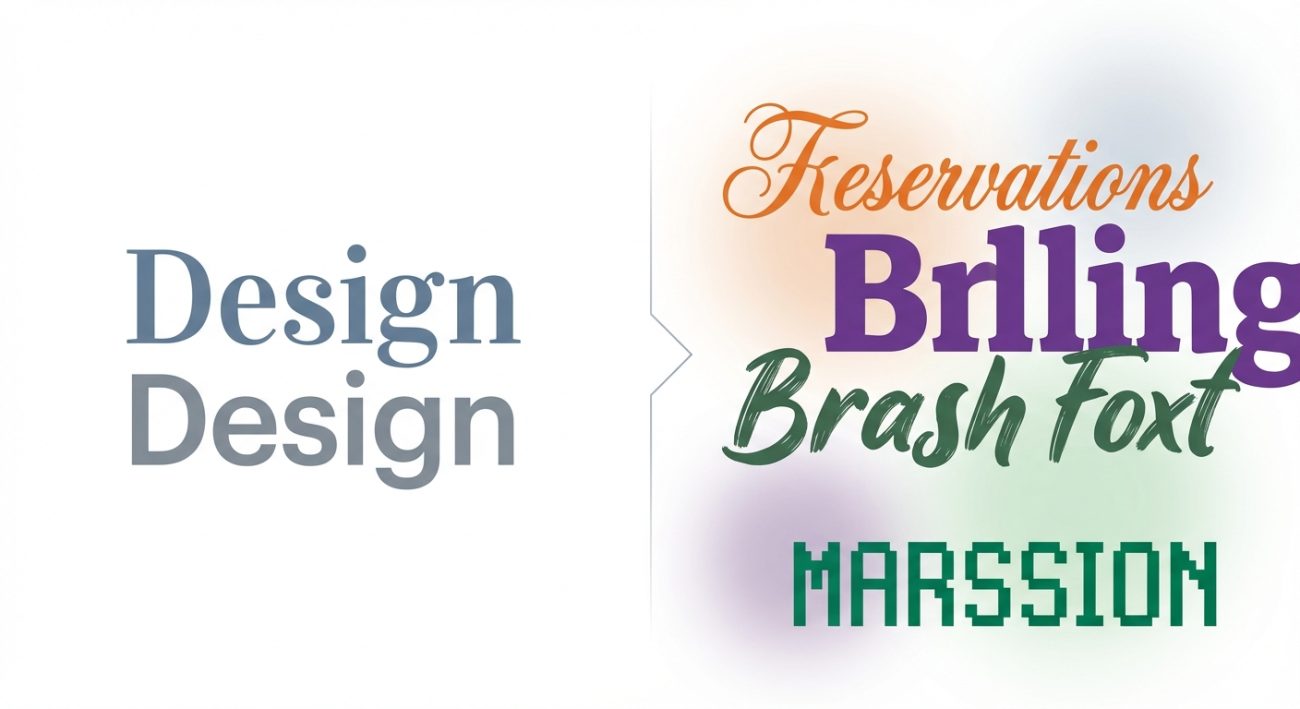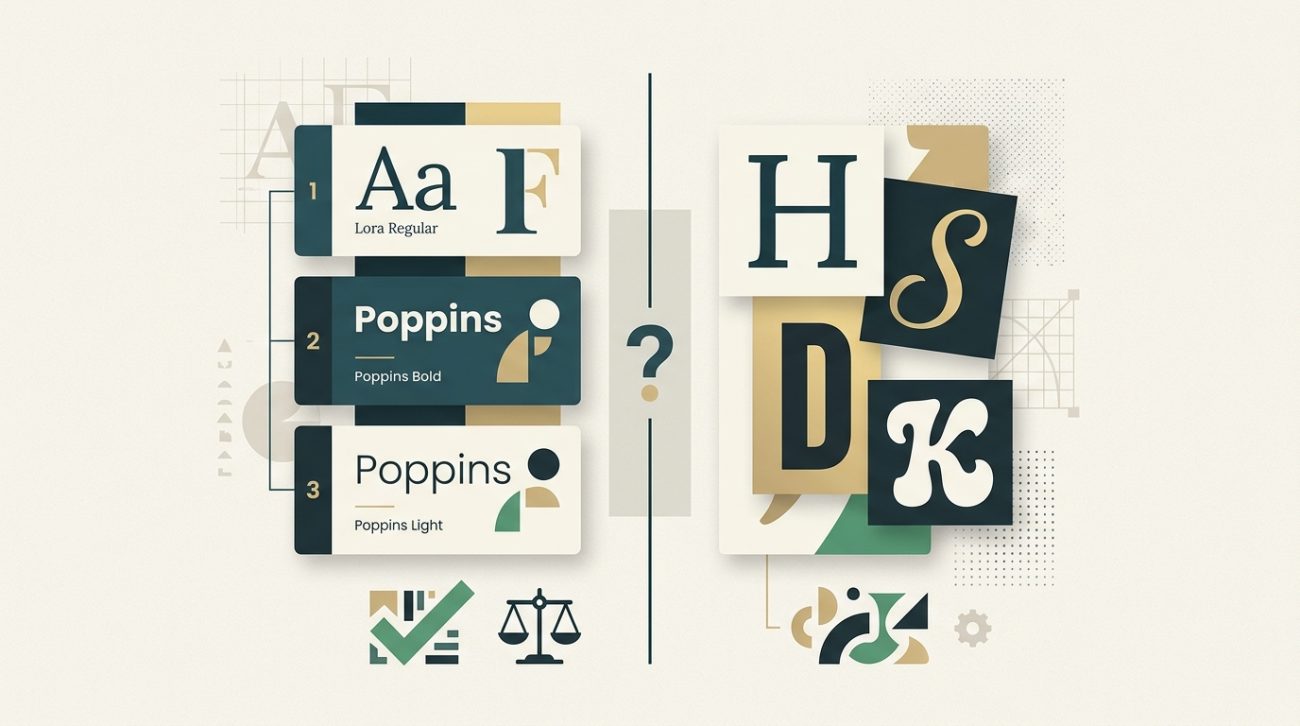
Most designers learn the two-font rule early on, but then they see beautiful designs using three, four, or even five typefaces. The confusion is real.
The truth is, there’s no magic number that works for every project. A business card needs fewer fonts than a 50-page magazine. A minimalist tech brand follows different rules than a playful children’s book publisher.
What matters more than the exact count is understanding why you’re adding each typeface and what job it needs to do.
Most designs work best with two to three fonts: one for headings and one for body text, with an optional accent font for special elements. Beginners should start with two and only add more when they can clearly explain why each typeface is necessary. The goal is visual hierarchy and readability, not variety for its own sake.
Why the two-font rule exists in the first place
The classic advice to stick with two fonts comes from decades of print design wisdom. One typeface handles headings, another handles body copy. Simple. Clean. Hard to mess up.
This approach works because it creates natural contrast. A bold sans-serif for headlines paired with a readable serif for paragraphs gives you instant visual hierarchy. Your eye knows where to look first.
Two fonts also force you to use size, weight, and spacing to create variety. You learn to make one typeface work harder by adjusting these properties instead of reaching for another font family.
But this rule was born in an era of print design with limited typeface libraries and high printing costs. Digital design opened up new possibilities and new problems.
When two fonts are genuinely enough
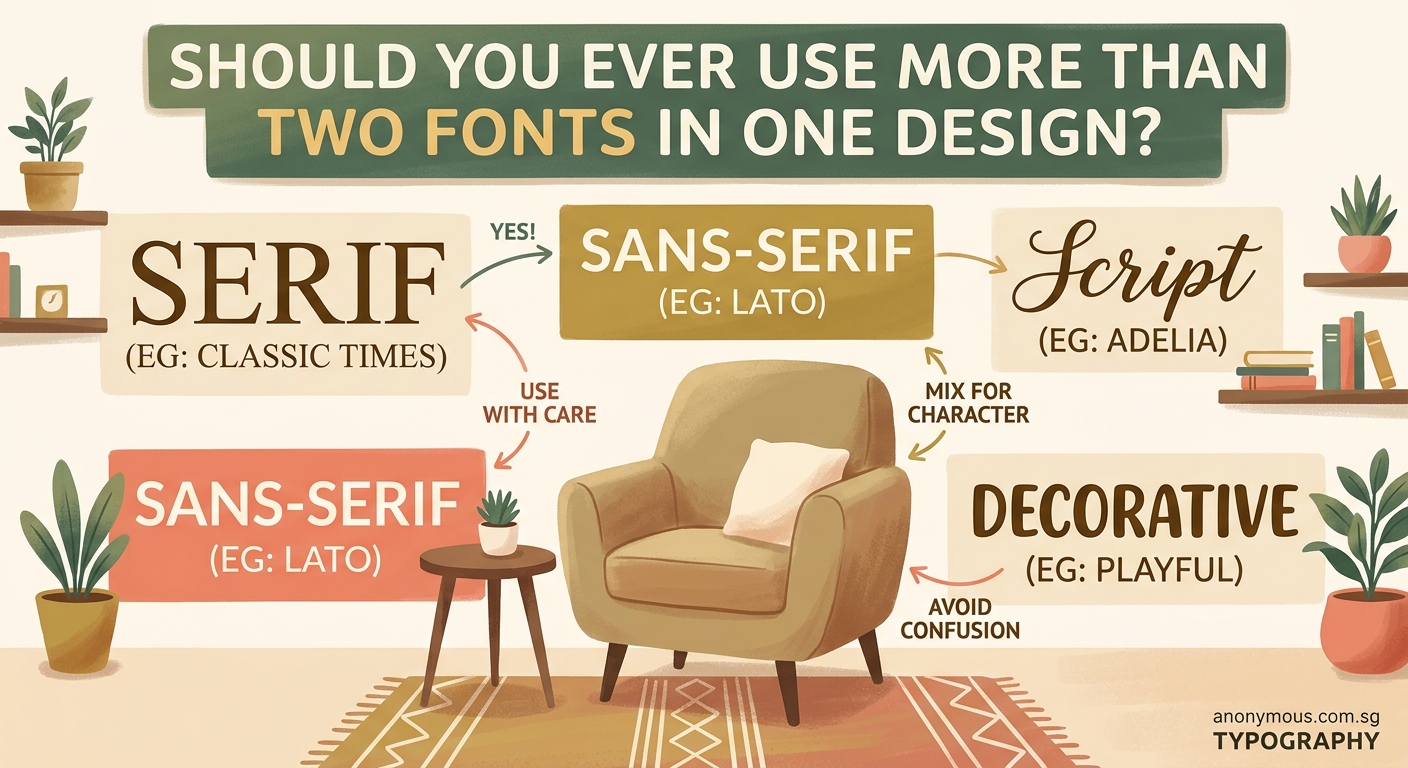
For many projects, two fonts remain the sweet spot. They cover your needs without adding complexity.
Website designs often thrive with just two typefaces. One handles all your headings (H1 through H6), navigation, and buttons. The other covers body text, captions, and form labels. Done.
Business cards, letterheads, and simple marketing materials rarely need more. The limited space means you’re better off perfecting the relationship between two fonts than cramming in extras.
Landing pages benefit from this constraint too. You want visitors focused on your message and call to action, not distracted by font variety.
Here are situations where two fonts genuinely shine:
- Minimal brand identities that emphasize restraint
- Text-heavy publications like blogs or news sites
- Corporate materials where professionalism trumps creativity
- Projects with tight deadlines where simplicity speeds up decisions
- Designs where content hierarchy is straightforward
The process becomes much easier when you’re only selecting two typefaces that need to work together.
The case for three fonts
Three fonts open up new possibilities without tipping into chaos. This is where most intermediate designers land once they’ve mastered the basics.
The typical three-font system looks like this: a display font for major headings, a sans-serif for subheadings and UI elements, and a serif for body text. Each has a clear job.
Magazines and editorial designs often use this structure. The display font creates impact on cover stories and section openers. The sans-serif organizes information in sidebars and captions. The serif carries the main narrative.
Brand systems with multiple touchpoints benefit from three fonts too. Think about a company that needs a website, app, printed brochures, and packaging. Three fonts give you enough flexibility to handle different contexts while maintaining consistency.
Your third font should solve a specific problem. Maybe you need a monospace font for code examples. Or a handwritten style for testimonials. Or a condensed font for data tables where space is tight.
“Add a third font only when you can point to an element and say exactly why the first two can’t handle it. If you’re adding variety just because you’re bored, stop.”
This connects directly to building a cohesive where every choice serves a documented purpose.
How to know if you actually need four or more
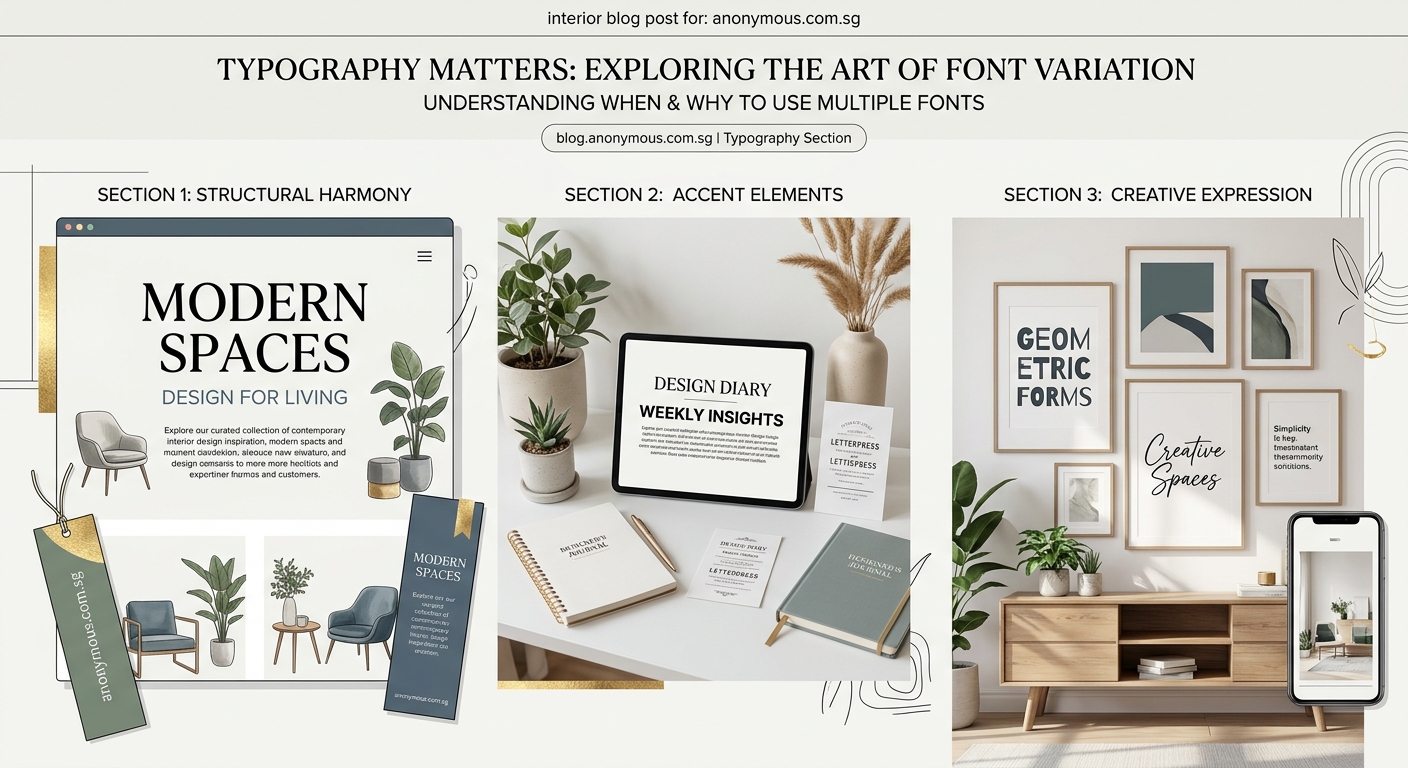
Four or more fonts enter risky territory. You can pull it off, but you need a solid reason and strong execution skills.
Large-scale projects sometimes justify this complexity. Annual reports, conference branding with multiple tracks, or product launches with distinct sub-brands might need extra typefaces.
The key is creating clear rules about where each font appears. Font four might only show up in pull quotes. Font five might be reserved exclusively for data visualizations. Strict boundaries prevent chaos.
Editorial brands with strong personalities sometimes use four to six fonts successfully. But notice they’re usually handled by experienced art directors who understand the principles deeply.
Here’s a framework to test if you need more than three fonts:
- List every text element in your design (headings, body, captions, labels, etc.)
Start conservative. You can always add fonts in future iterations if you genuinely need them. Removing fonts after you’ve built a design around them is much harder.
Pay attention to how experienced designers handle typography in work you admire. Count their fonts. Notice where each appears. Study how they create variety within constraints.
Your font choices will improve with every project. The key is making intentional decisions based on function, not adding variety because you can. Let your content guide the complexity, and you’ll land on the right number naturally.